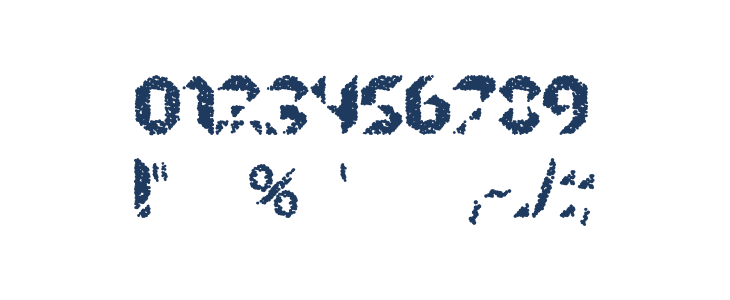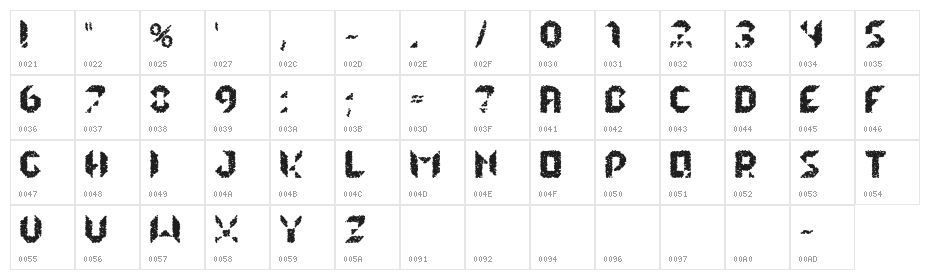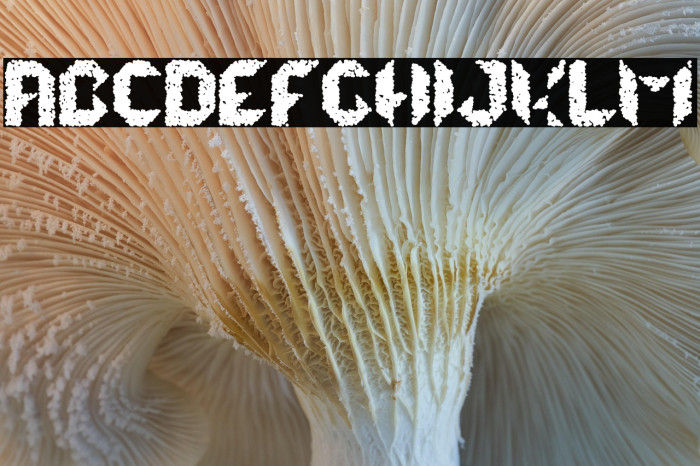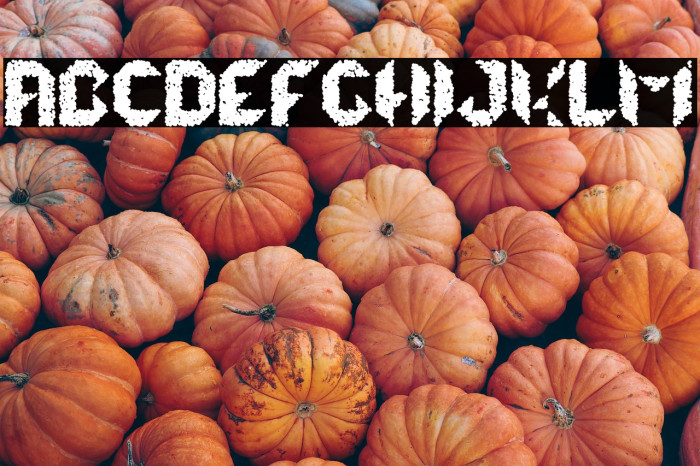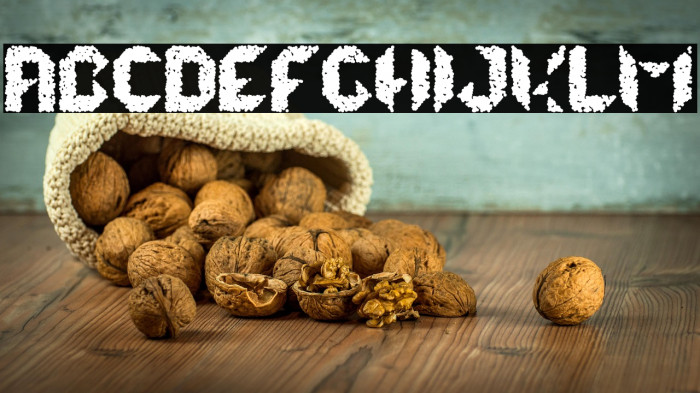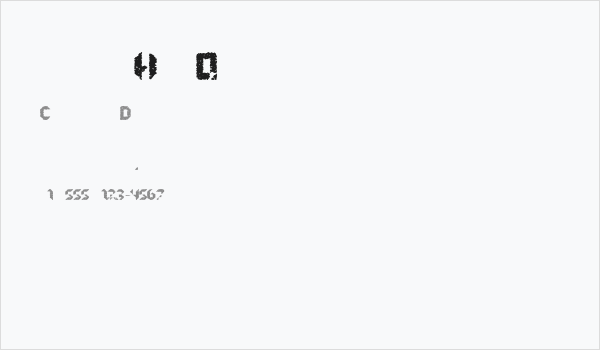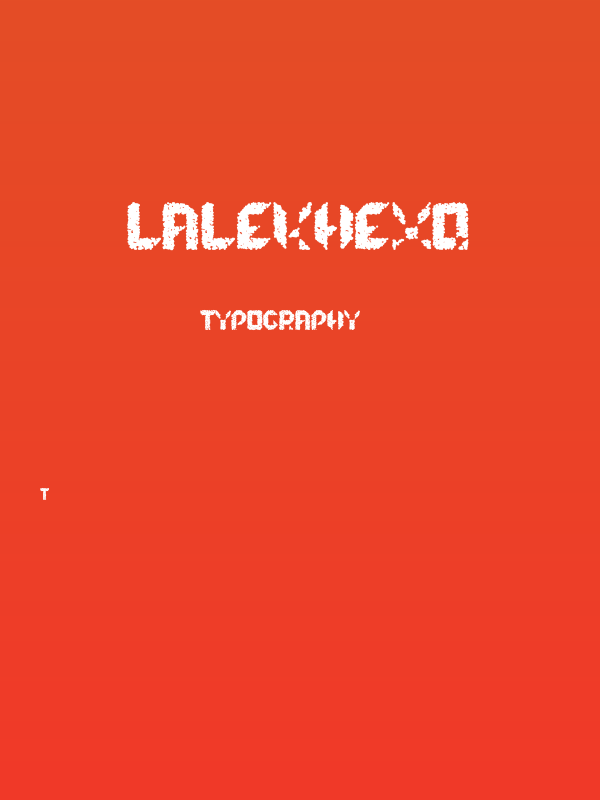
lalekHexQ Font
lalekHexQ Description
This font features a unique, distressed texture that gives it a gritty, weathered appearance. The characters are bold and impactful, with a rough, uneven edge that suggests a sense of decay or erosion. Each letter and number is distinct, yet they all share a cohesive style that makes the font stand out. The texture adds depth and character, making it suitable for designs that require a rugged or industrial feel. The uppercase and lowercase letters maintain a consistent style, while the numbers and special characters complement the overall aesthetic.
| Proposed Projects | Ideal for posters, album covers, branding for edgy or industrial-themed products, and any design needing a bold, textured statement. |